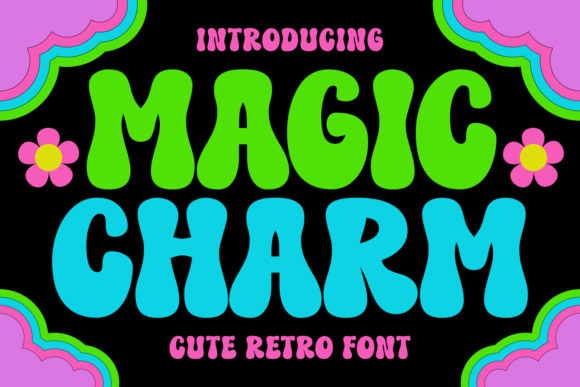
Introducing Magic Charm Font, the ultimate font for digital display that will instantly captivate your heart! Created by the talented team at Creative Fabrica Fonts, this cute and chubby display font is here to add a touch of magic to all your creative projects.
With Magic Charm Font, you can easily elevate your designs and make them stand out from the crowd. This font is packed with charm and personality, making it the perfect choice for creating captivating typography that will leave a lasting impression.
Whether you're designing posters, apparel, cards, websites, advertisements, banners, signage, or anything else, Magic Charm Font is your go-to tool. Its unique style and versatility allow you to unleash your creativity and bring your ideas to life in the most enchanting way possible.
Imagine the joy and excitement your audience will feel when they see your designs adorned with this delightful font. Its playful curves and whimsical details will instantly grab their attention and keep them hooked. Get ready to make a statement that truly resonates with your target audience.
But Magic Charm Font isn't just about aesthetics. It's also about functionality and ease of use. This font is carefully designed to ensure seamless legibility, making it a breeze for your audience to read and understand your message. No more struggling with fonts that are hard to decipher – Magic Charm Font has got you covered.